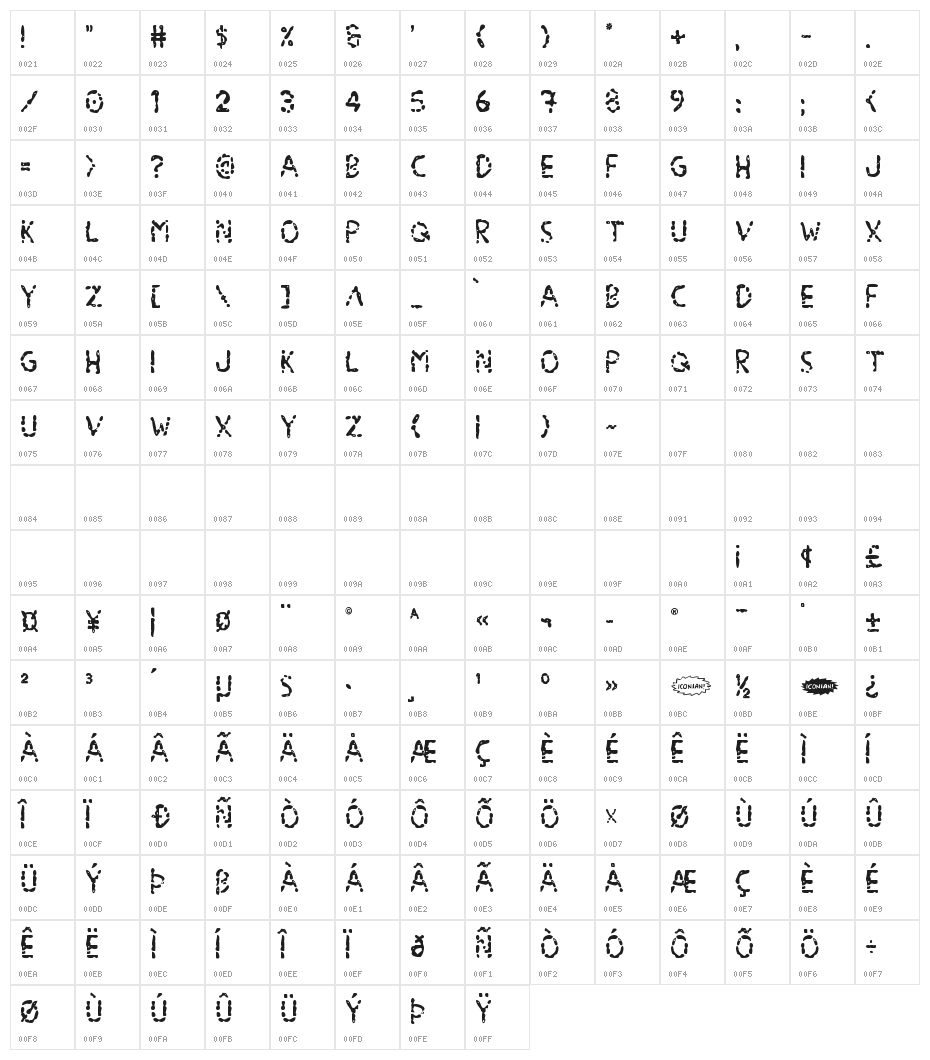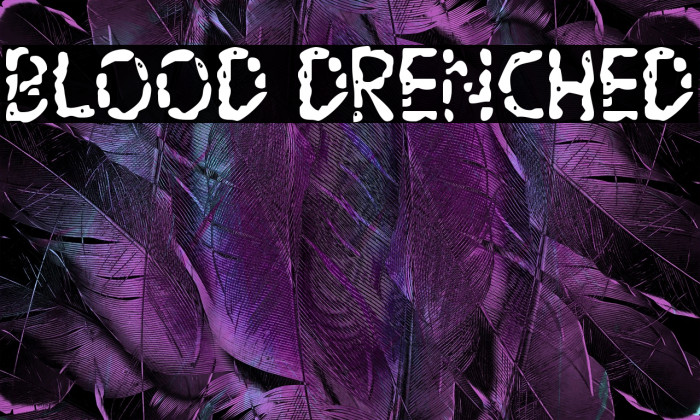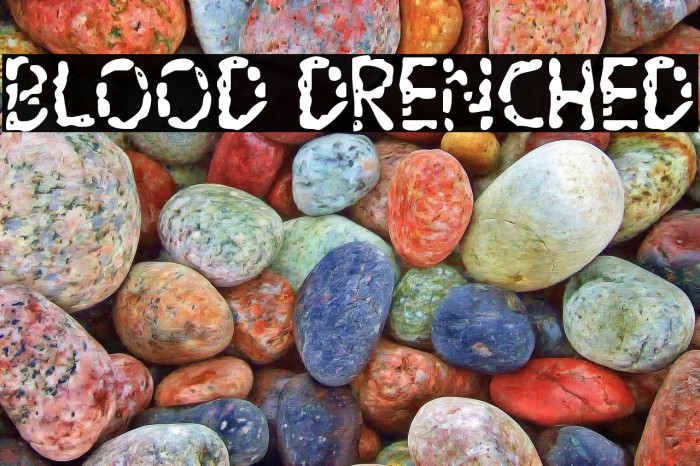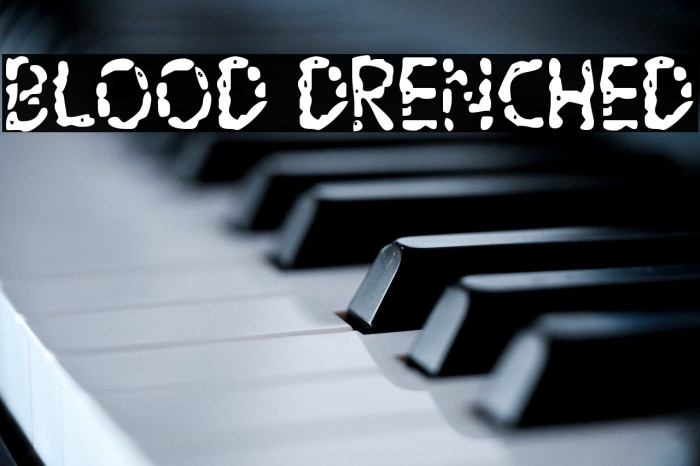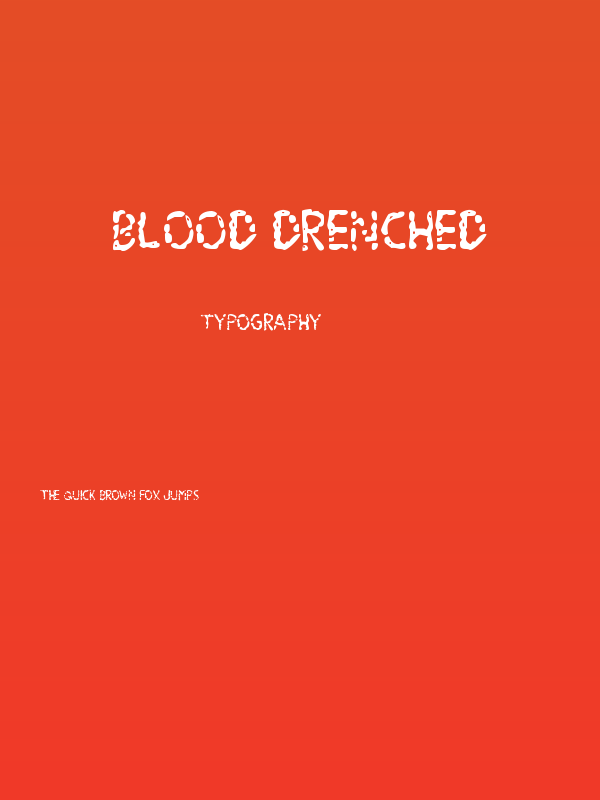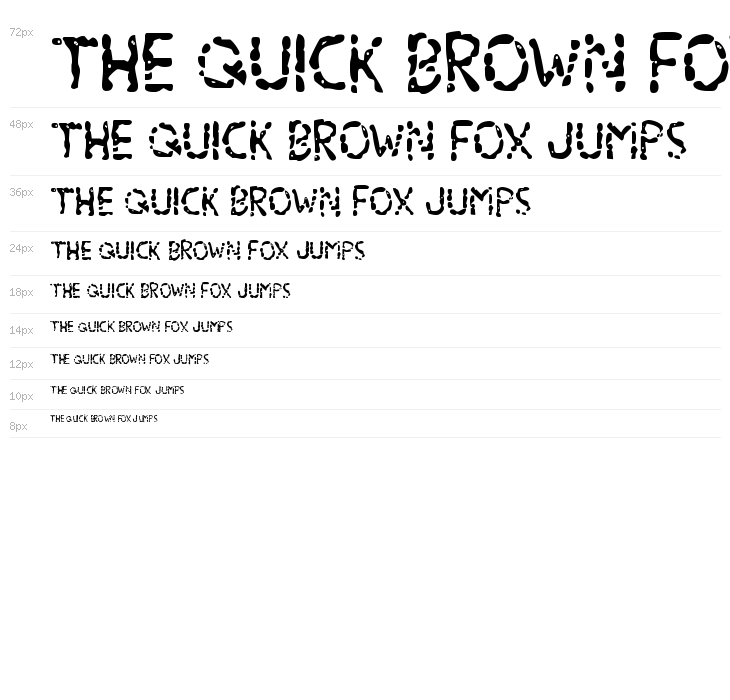
Blood Drenched Font
Blood Drenched Description
This font features a unique and eerie design, with characters appearing as if they are dripping or splattered with liquid. The irregular shapes and uneven edges give it a horror-themed aesthetic, making it ideal for projects that require a spooky or unsettling vibe. Each letter and number is distinct, with a playful yet menacing appearance. The font's bold and dramatic style is perfect for capturing attention and creating a memorable visual impact. Its decorative nature makes it suitable for Halloween-themed designs, horror movie posters, or any project that aims to evoke a sense of mystery and suspense.
| Proposed Projects | Ideal for Halloween designs, horror movie posters, spooky invitations, and themed event promotions. |